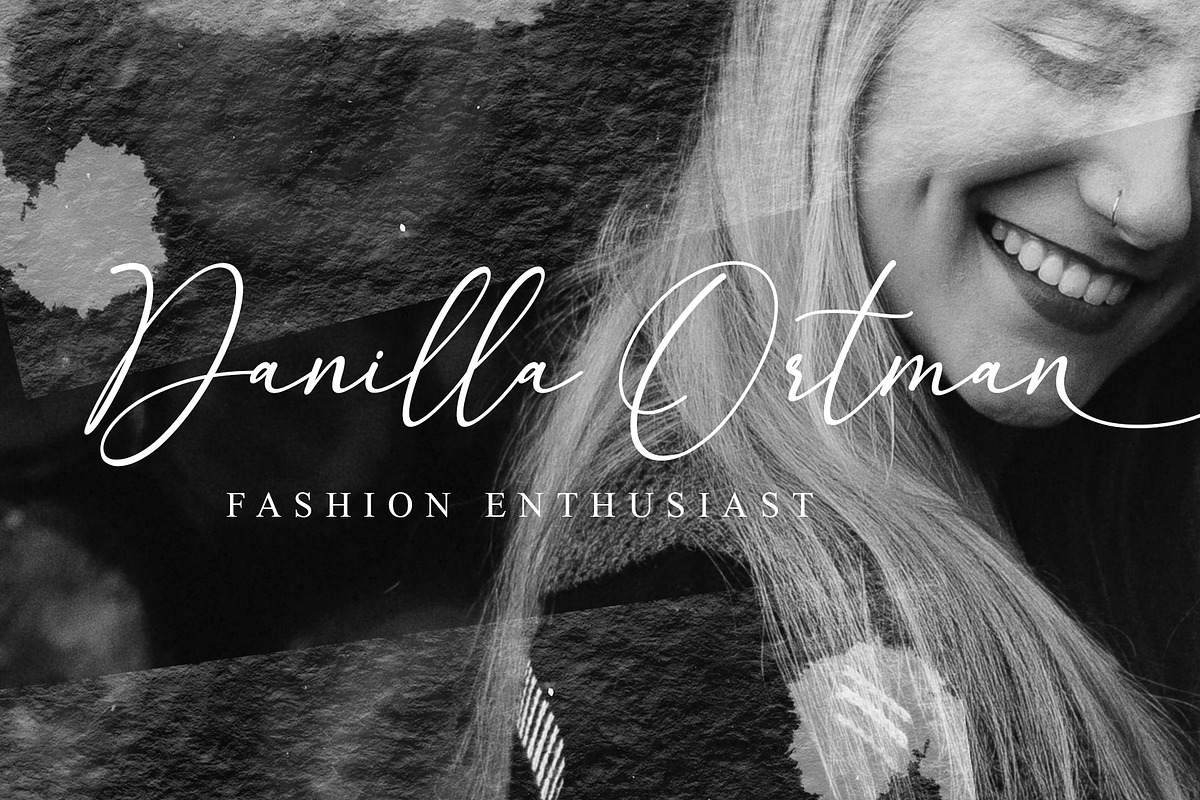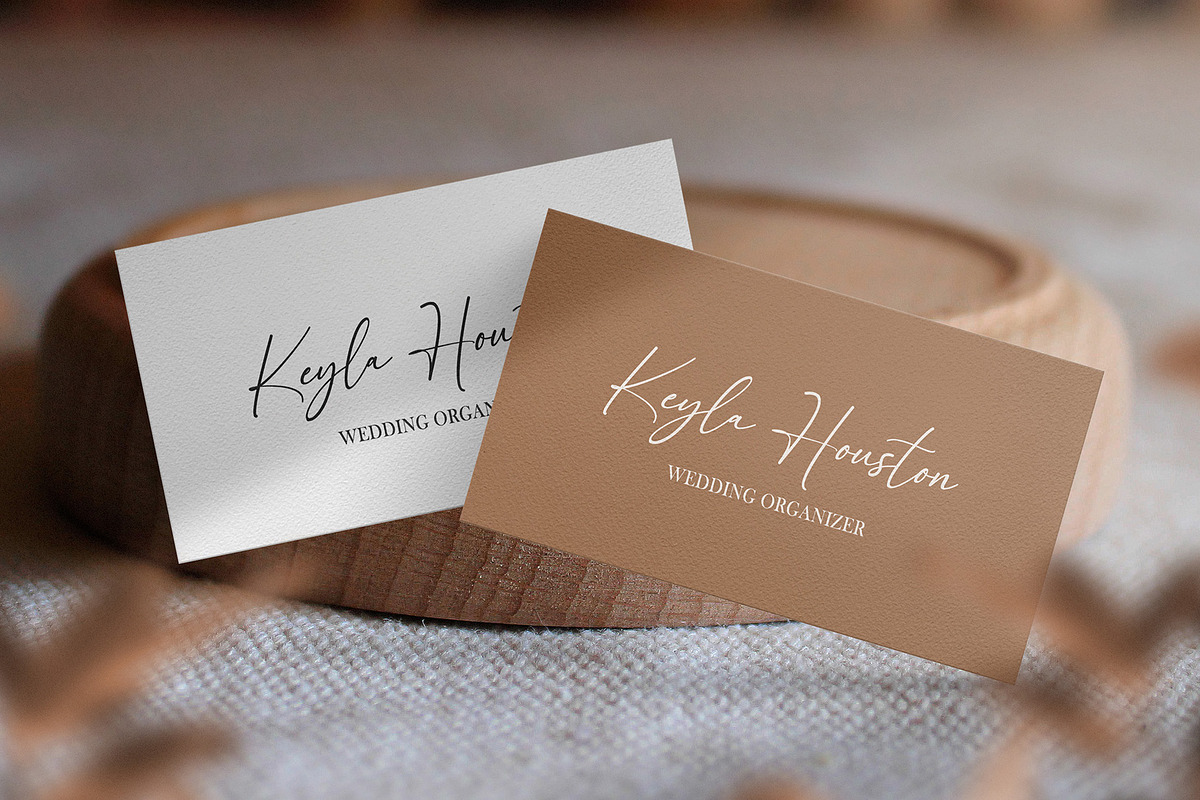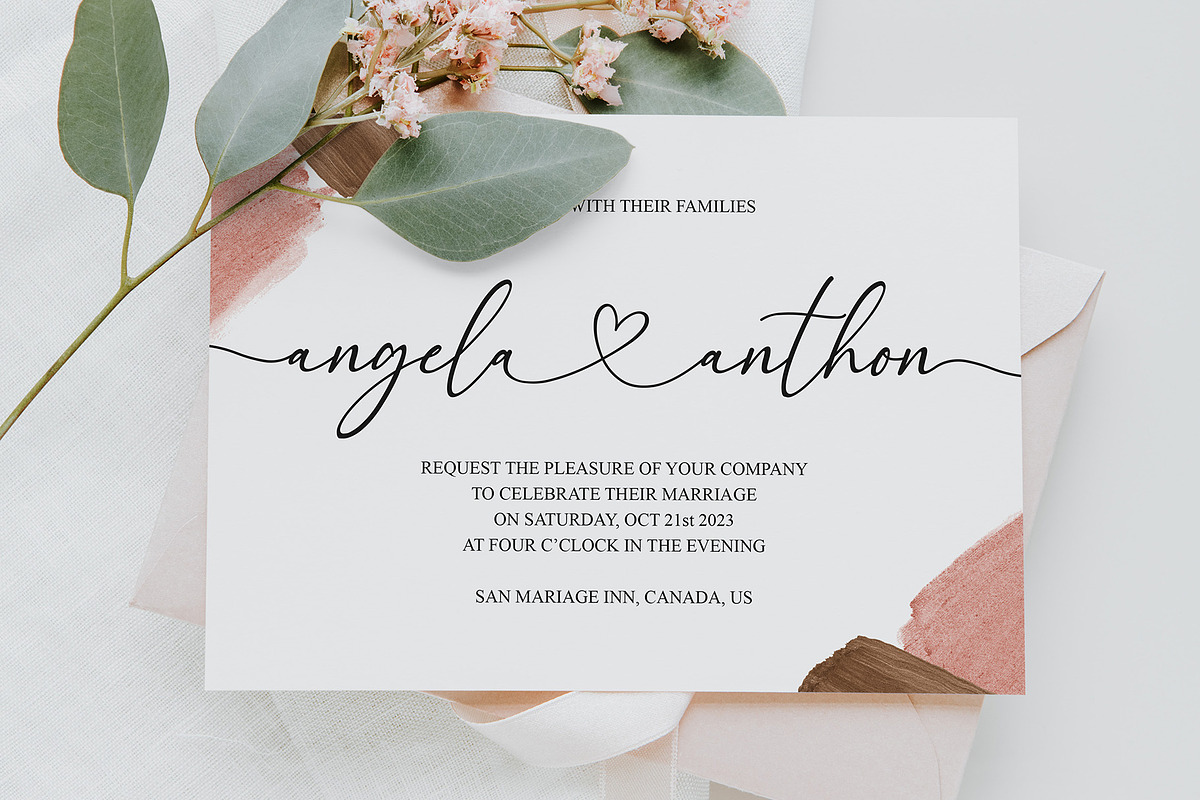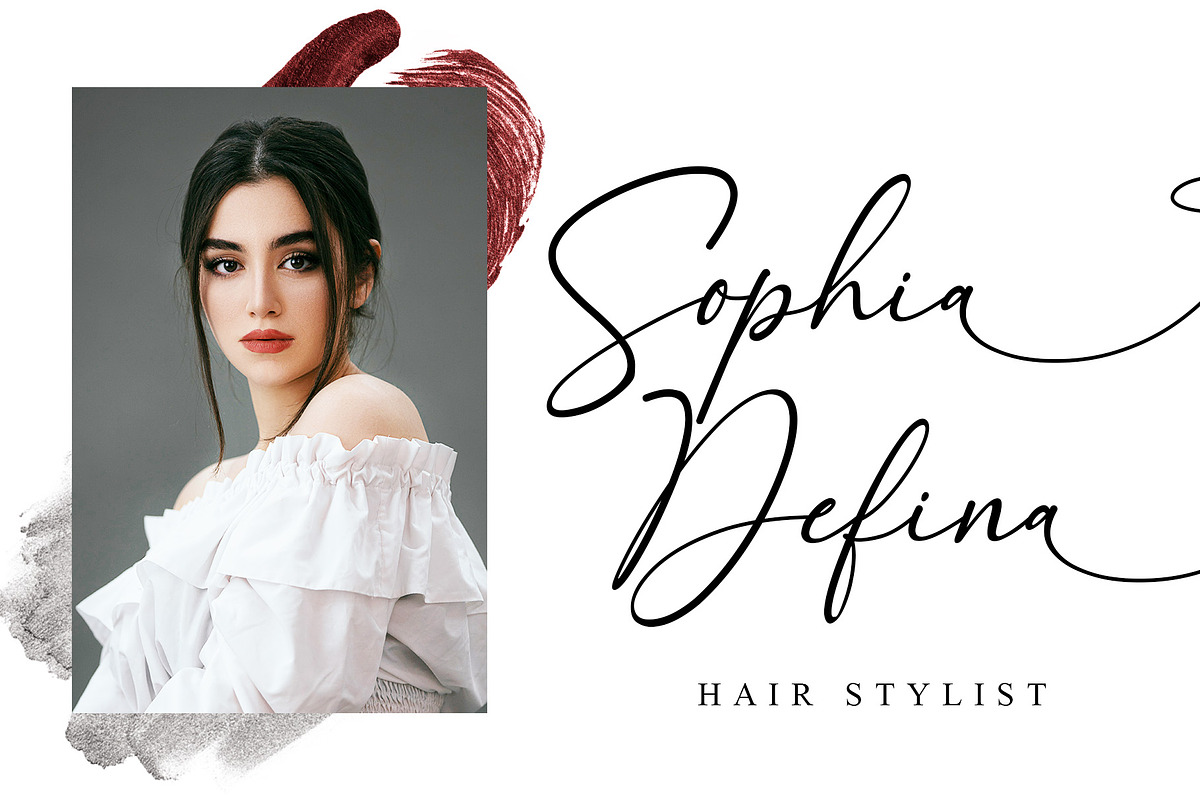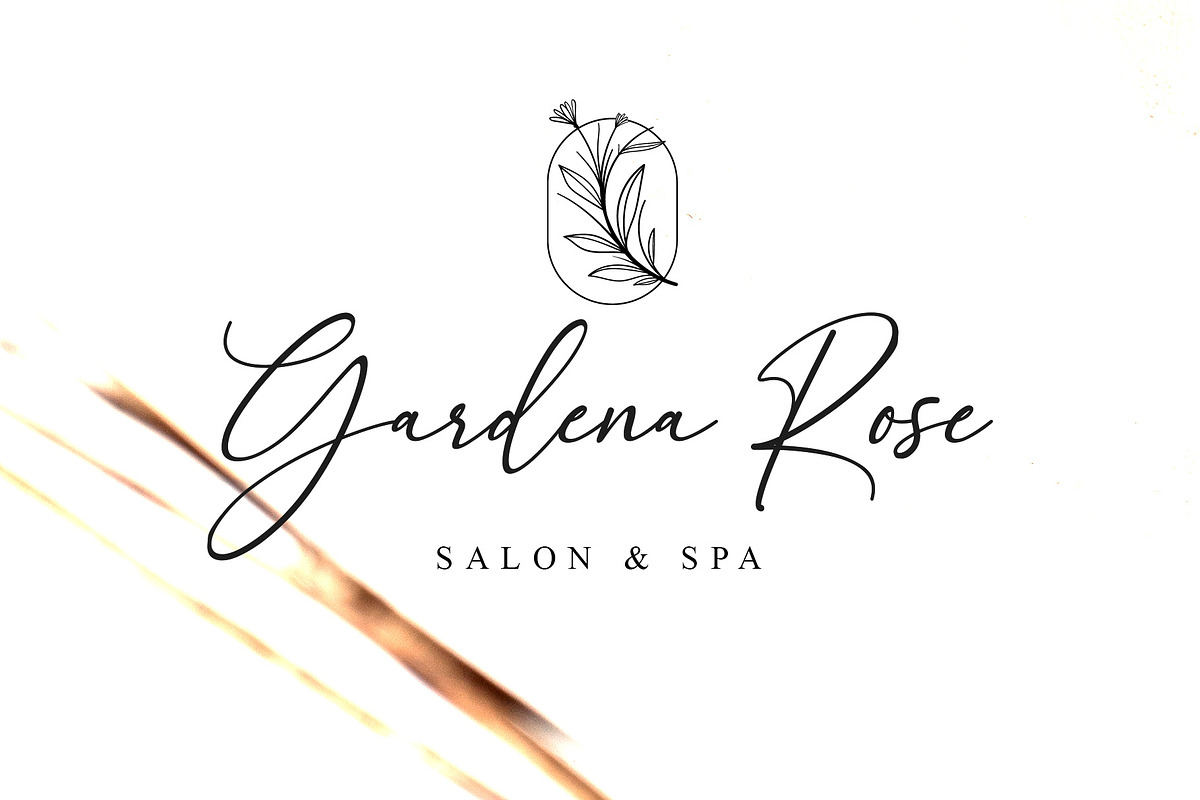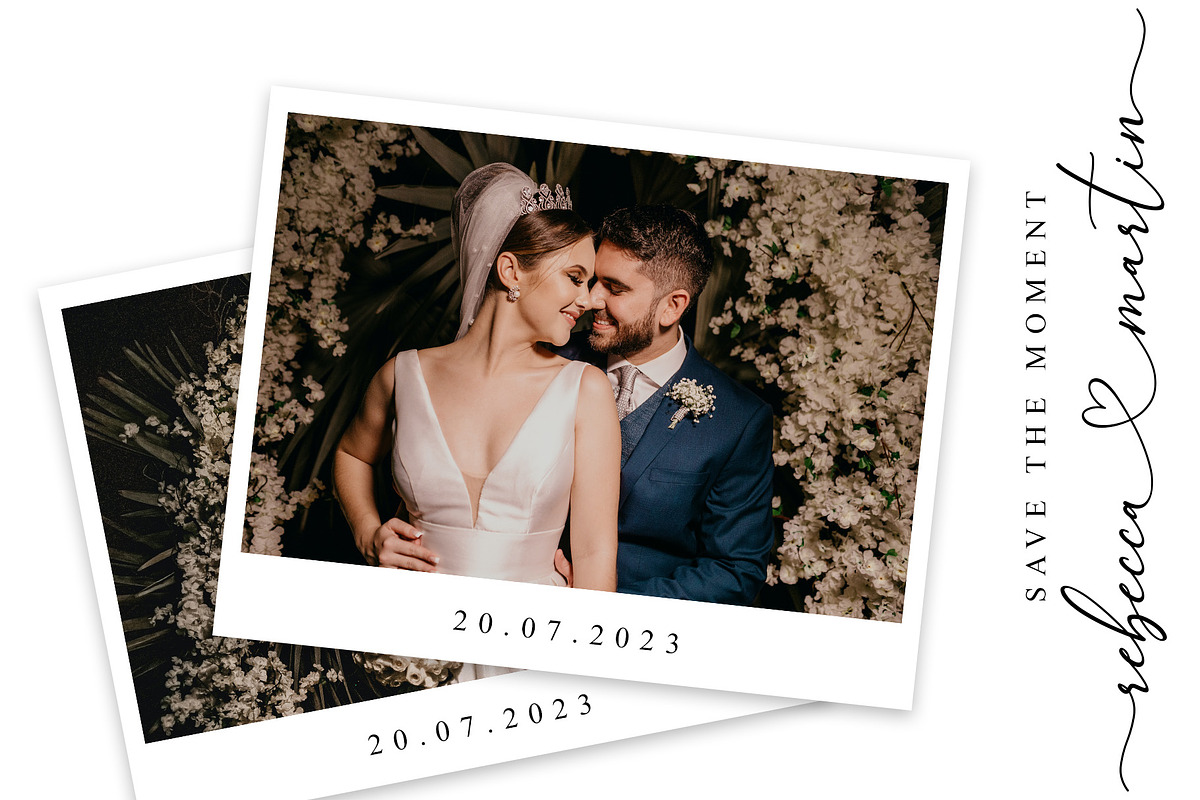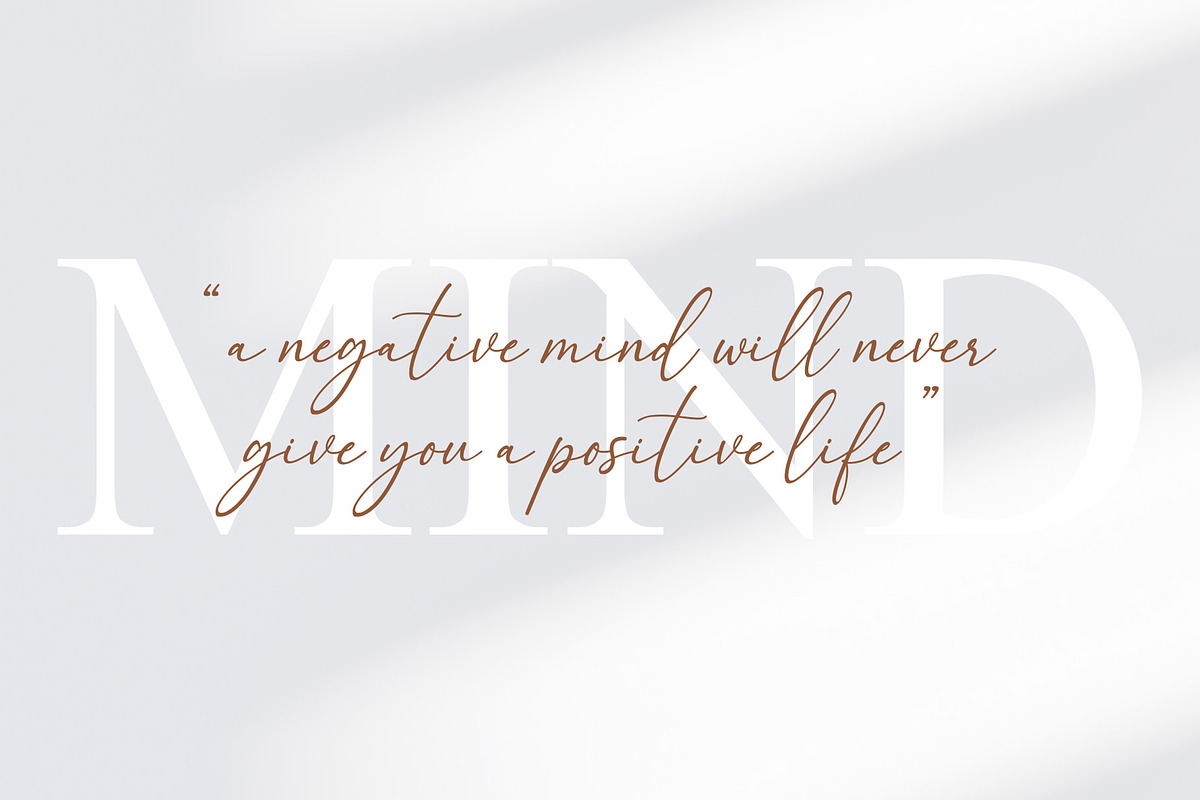
Hello Melinda - Modern Calligraphy
Hello Mellinda is a sweet and delicate handwritten font. Dainty and joyful, this font will be ideal for writing wedding invitations, cards, or any other design that may need a romantic, personalized touch!